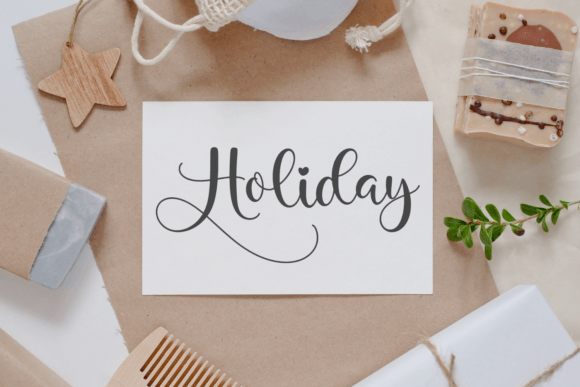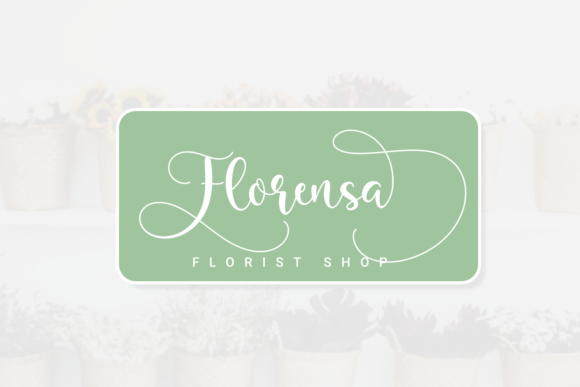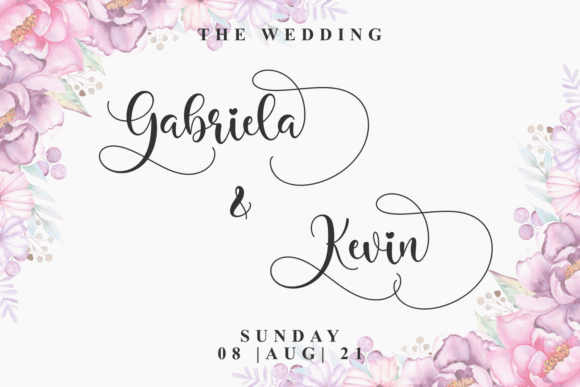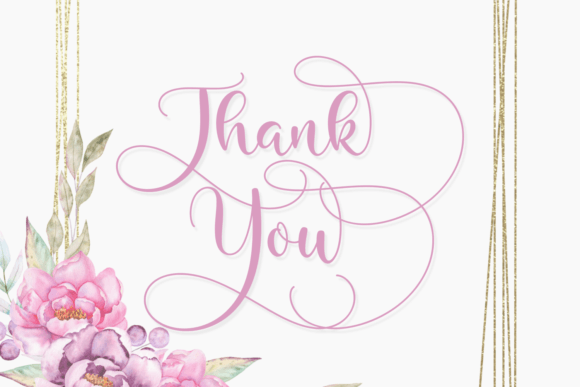
Introducing Butterfly Font: The Perfect Blend of Strength and Elegance
In the world of typography, fonts play a crucial role in conveying the tone and personality of a design. For designers and crafters looking for a modern calligraphy font that exudes both strength and elegance, look no further than Butterfly Font. This stunning font features a unique combination of bold shapes and delicate thin lines, making it perfect for a wide range of projects.
What is Butterfly Font?
Butterfly Font is a modern calligraphy font that boasts a strong and bold shape, combined with delicate thin lines that add an elegant touch. This beautiful font is designed to provide a perfect blend of strength and grace, making it ideal for projects that require a sense of sophistication and refinement. Whether you’re working on a logo design, title, award, advertisement, or greeting card, Butterfly Font is sure to make a lasting impression.
Key Features of Butterfly Font
- Modern Calligraphy Style: Butterfly Font features a modern calligraphy style that is both trendy and timeless.
- Strong and Bold Shape: The font’s strong and bold shape makes it perfect for headlines, titles, and logos.
- Delicate Thin Lines: The delicate thin lines add an elegant touch to the font, making it suitable for projects that require a sense of sophistication.
- Highly Versatile: Butterfly Font can be used for a wide range of projects, including logo designs, titles, awards, advertisements, greeting cards, and more.
Uses of Butterfly Font
Butterfly Font is a highly versatile font that can be used for various design projects. Here are some of the ways you can use this beautiful font:
- Logo Designs: Create stunning logos that make a lasting impression with Butterfly Font.
- Titles and Headlines: Use the font’s strong and bold shape to create eye-catching titles and headlines.
- Awards and Certificates: Add a touch of elegance to your awards and certificates with Butterfly Font.
- Advertisements: Use the font to create eye-catching advertisements that grab attention.
- Greeting Cards: Create beautiful greeting cards for special occasions with Butterfly Font.
Why Choose Butterfly Font?
With so many fonts available, why choose Butterfly Font? Here are some reasons why this font stands out:
- Unique and Modern Design: Butterfly Font features a unique and modern design that will make your projects stand out.
- Elegant and Sophisticated: The font’s delicate thin lines add an elegant and sophisticated touch to your designs.
- Highly Readable: Butterfly Font is highly readable, making it perfect for projects that require a clear and concise message.
Tips for Using Butterfly Font
Here are some tips for using Butterfly Font effectively:
- Use it as a Headline Font: Use Butterfly Font as a headline font to grab attention and make a lasting impression.
- Pair it with Other Fonts: Pair Butterfly Font with other fonts to create a unique and visually appealing design.
- Keep it Simple: Keep your design simple and clean to allow the font to shine.